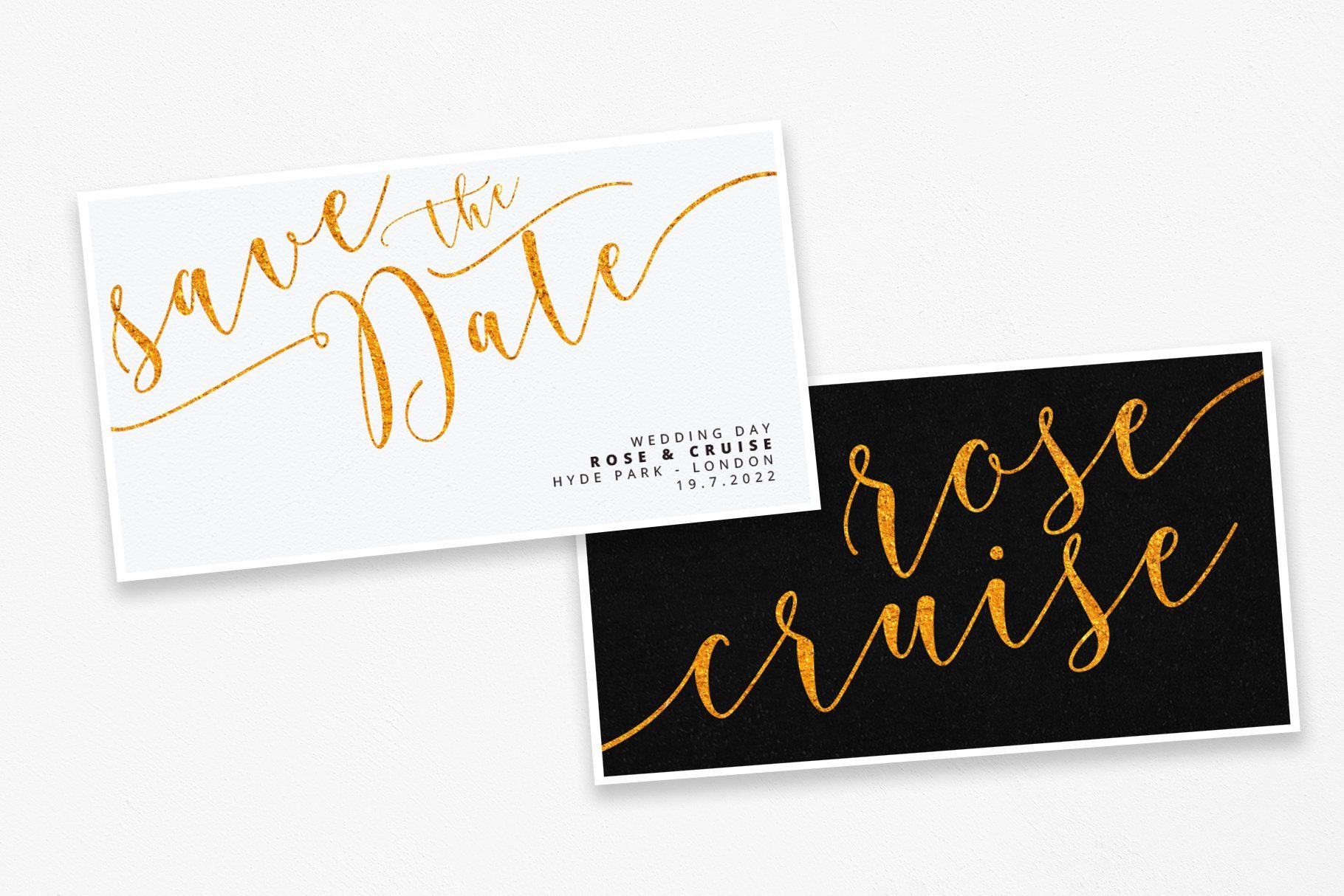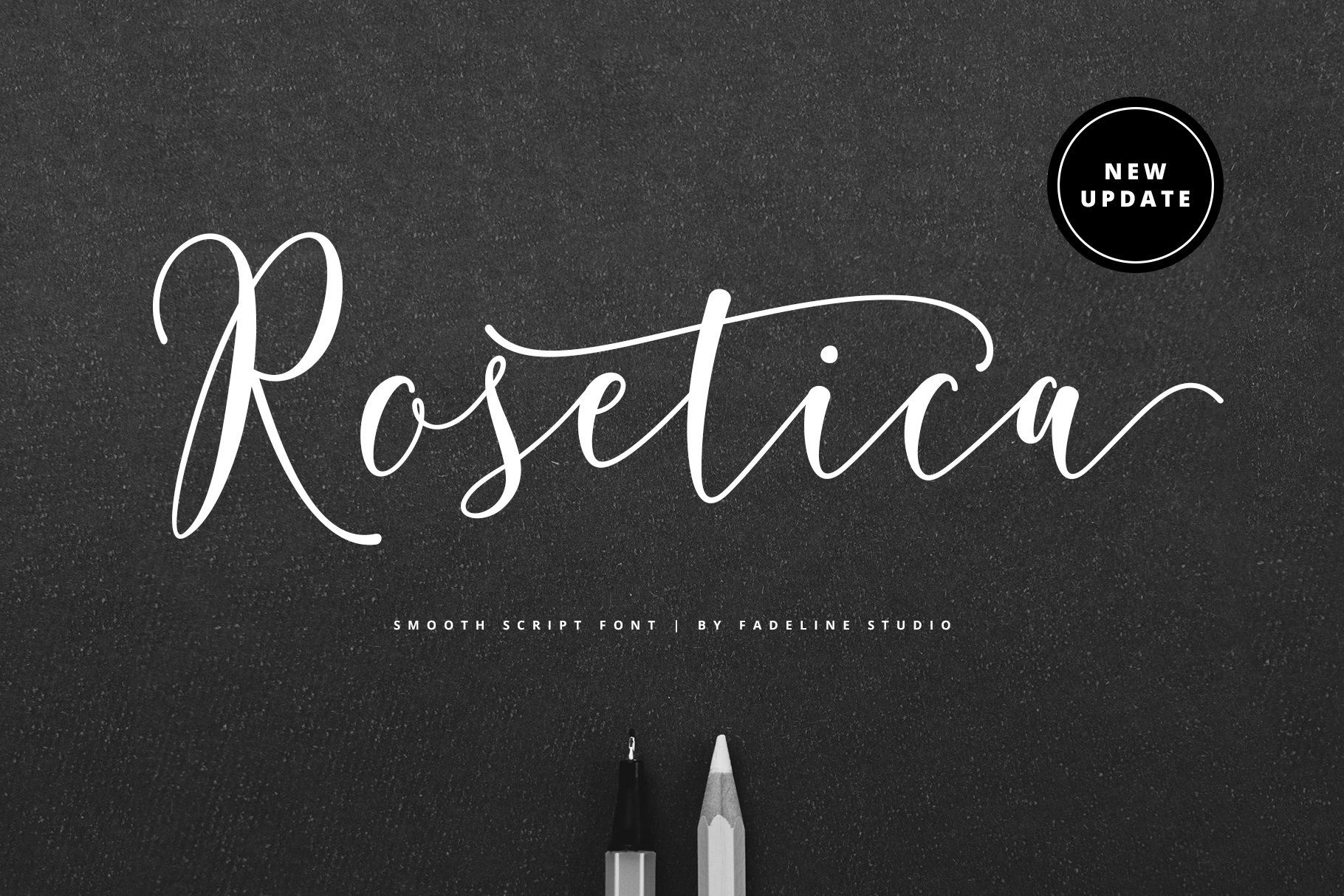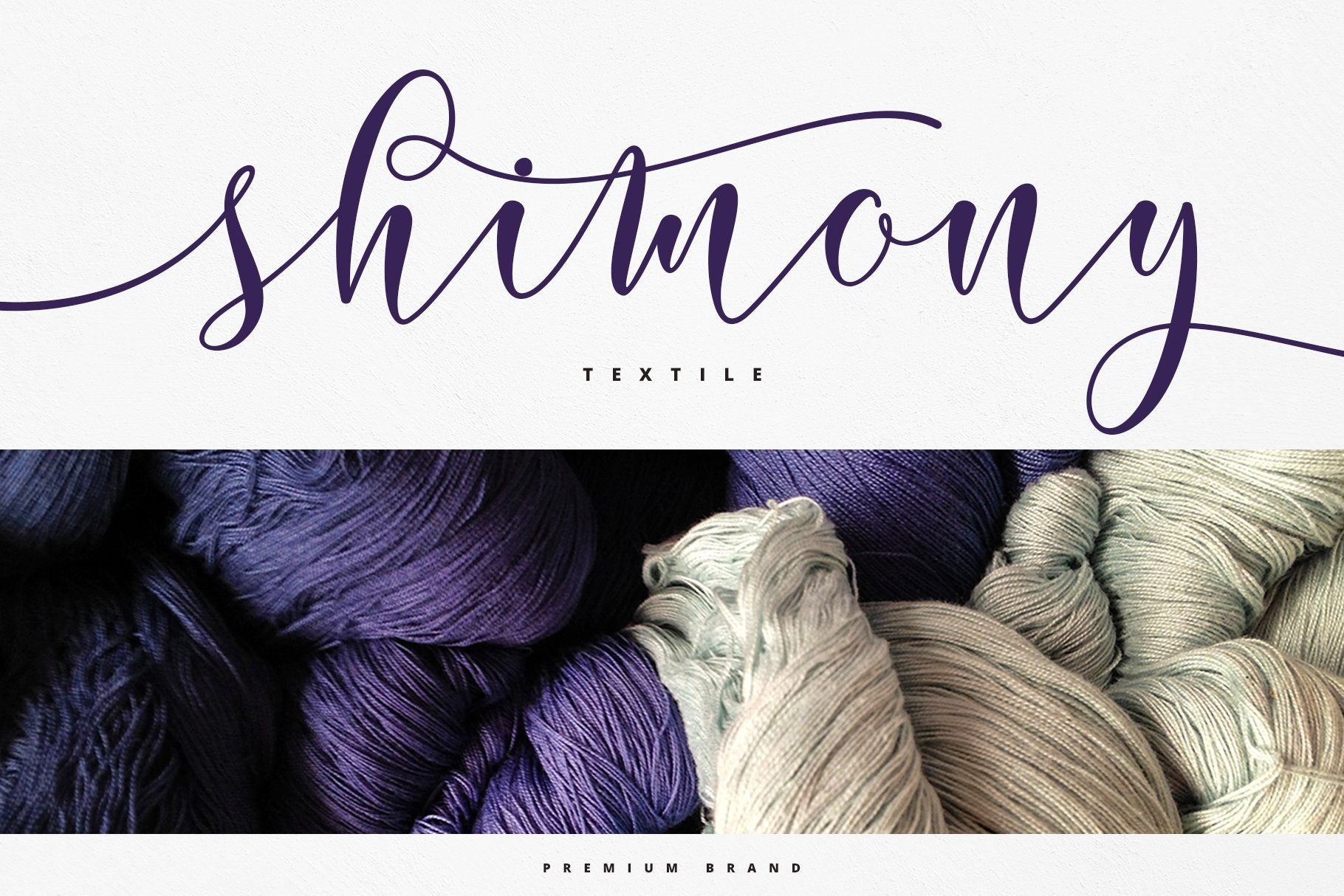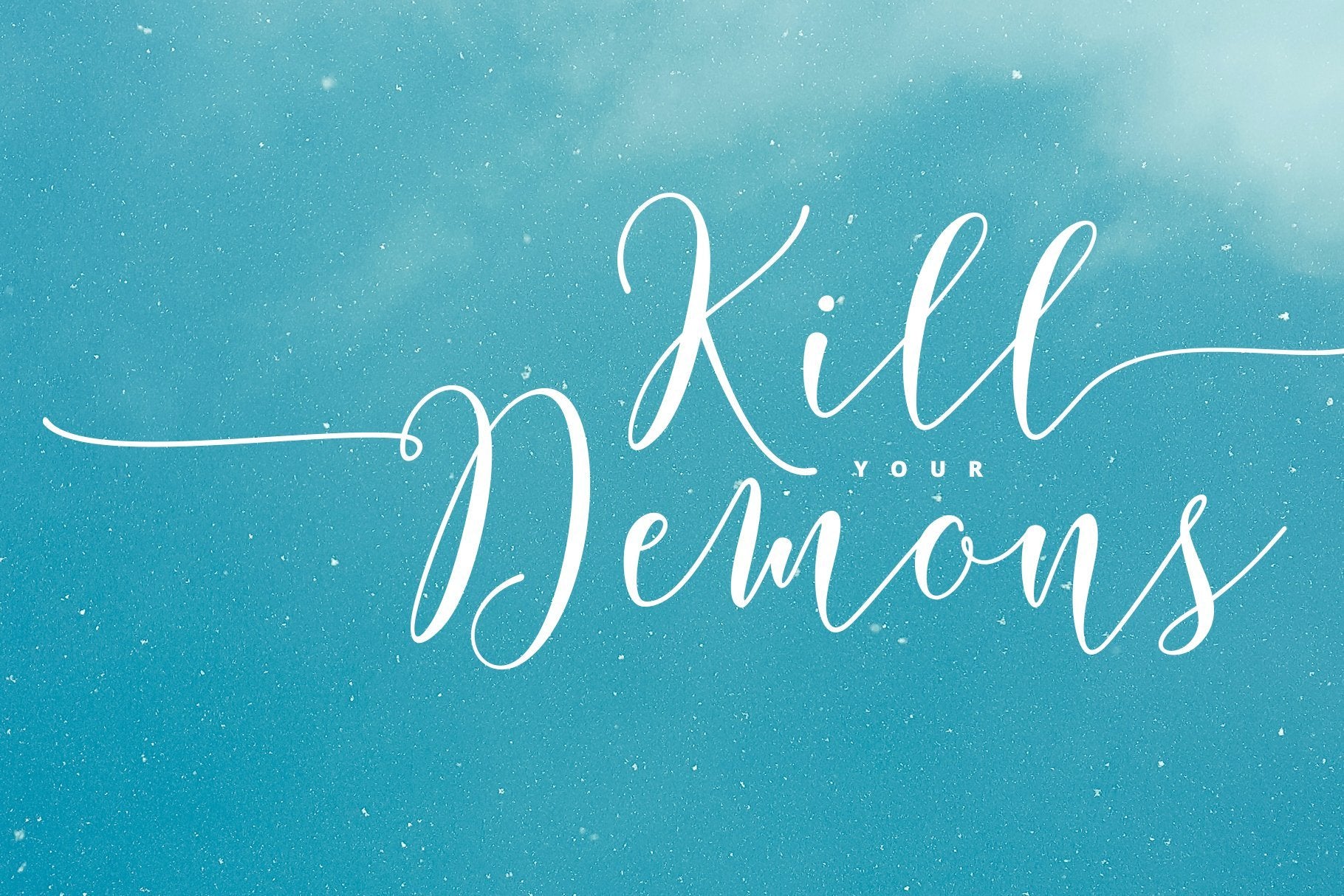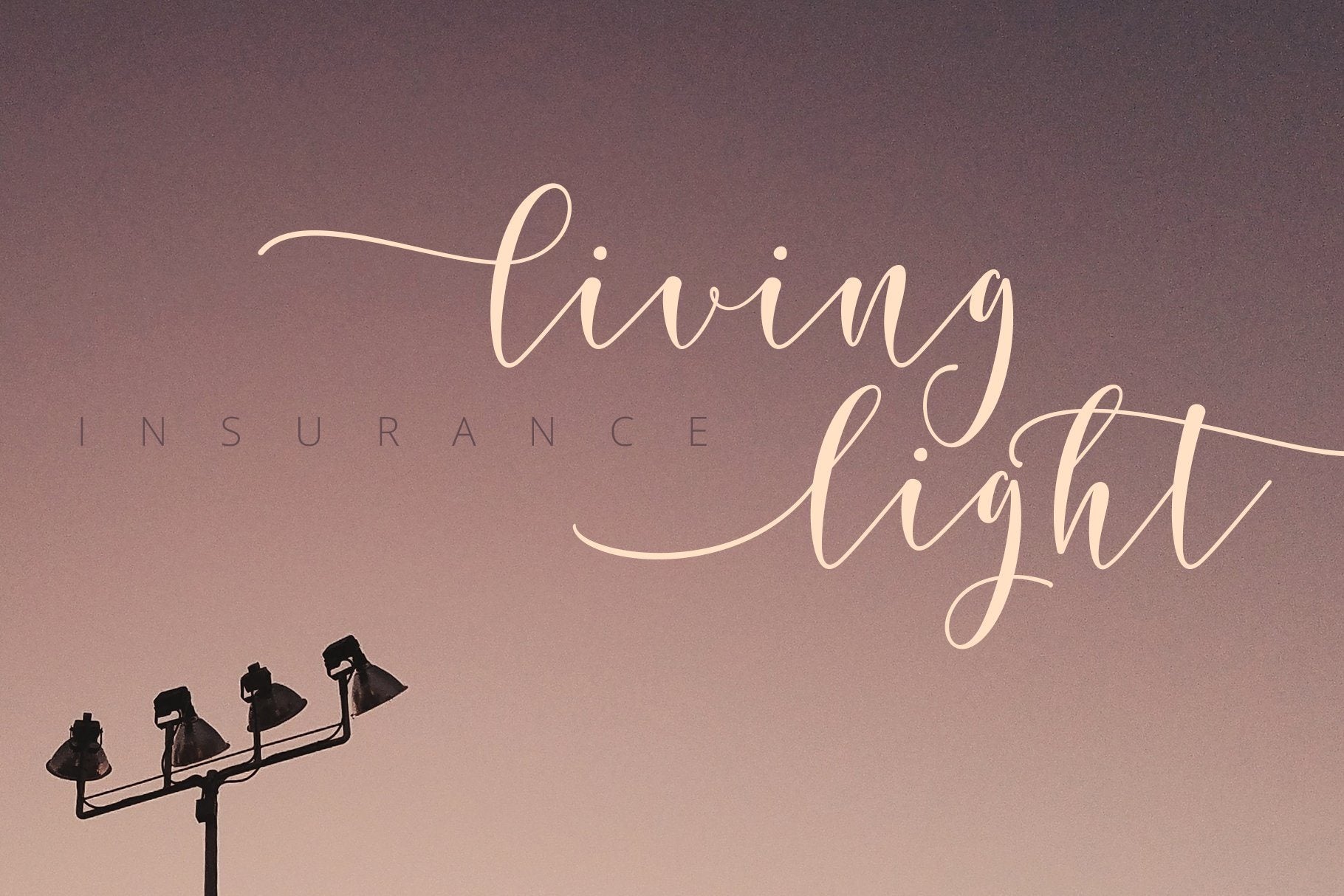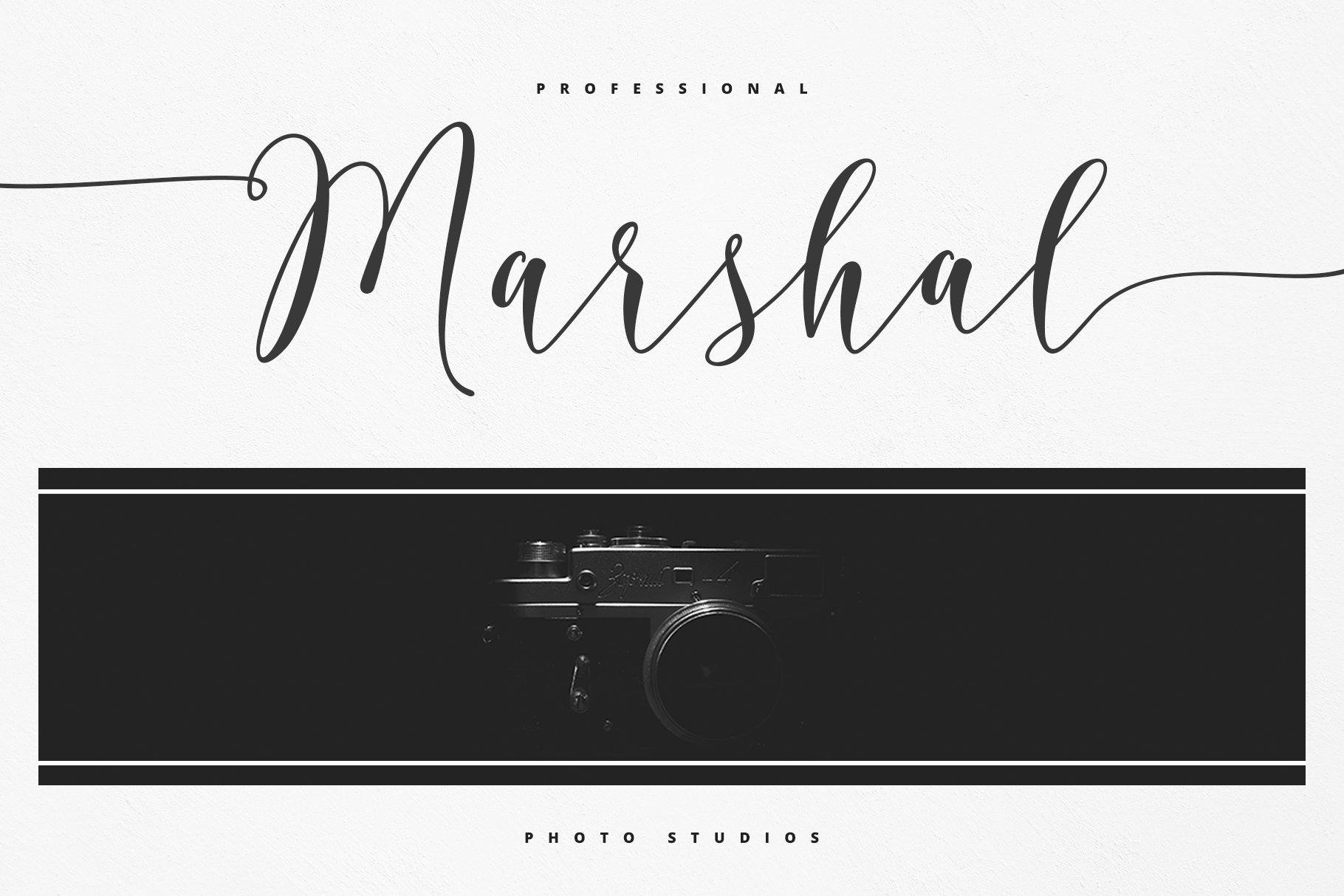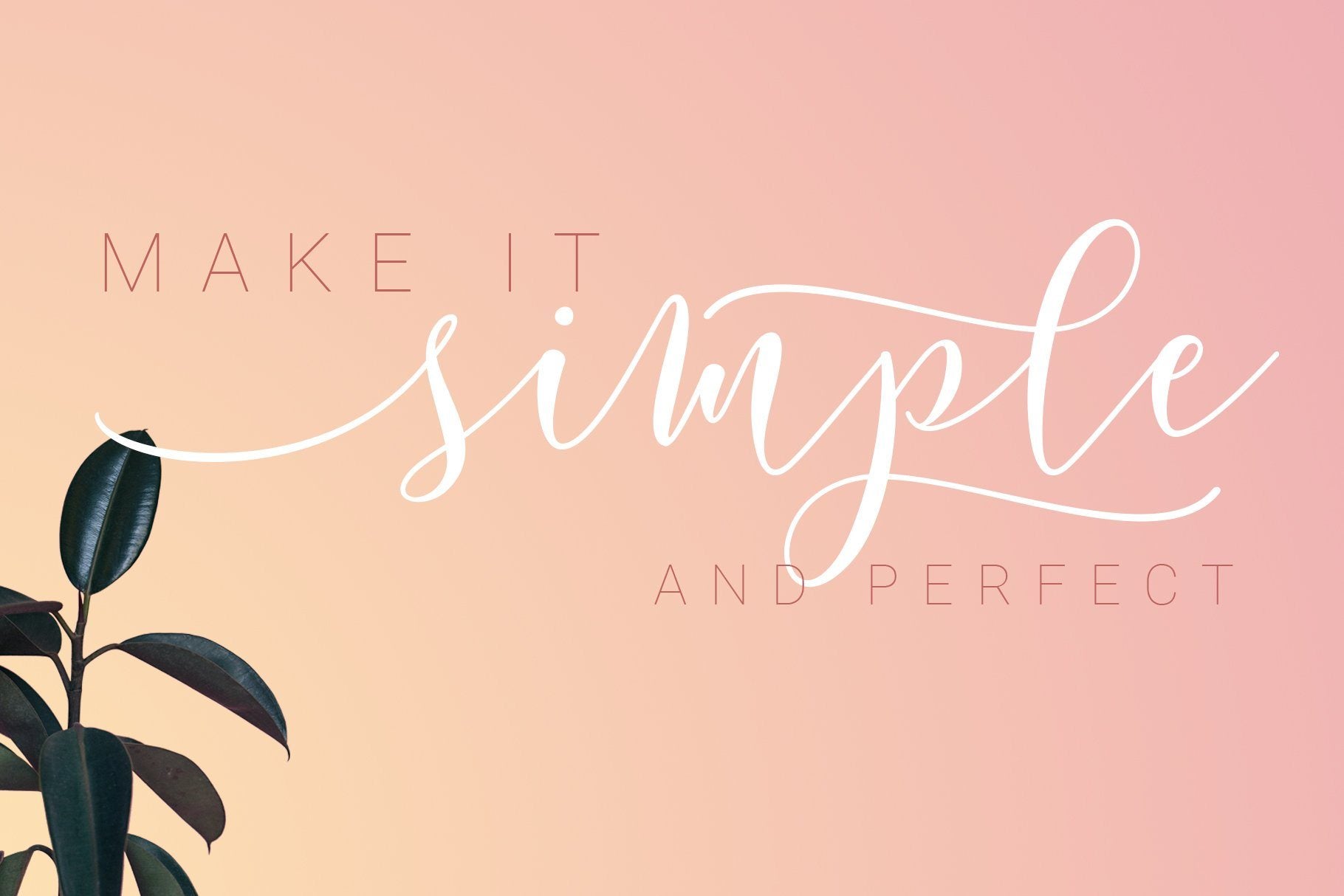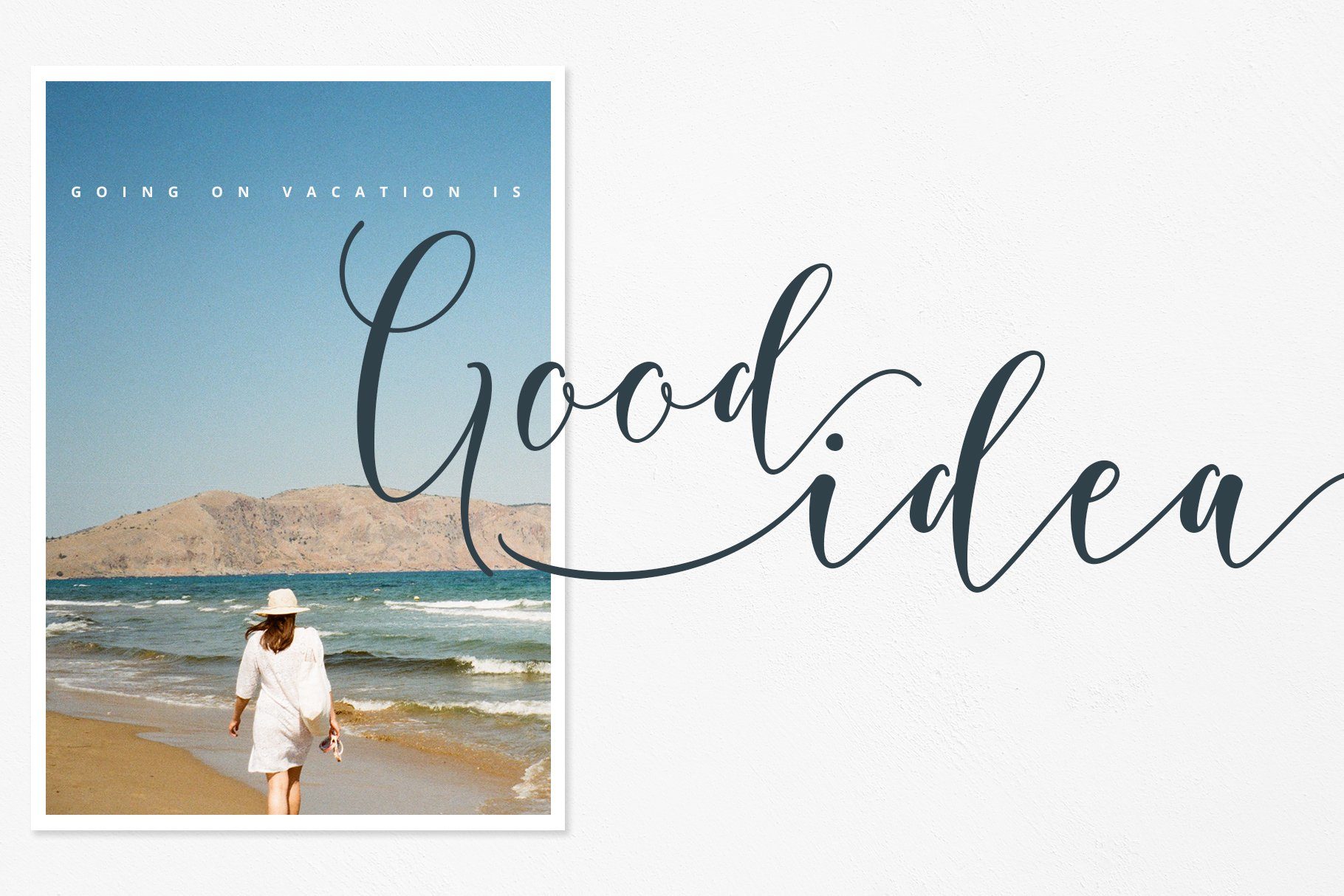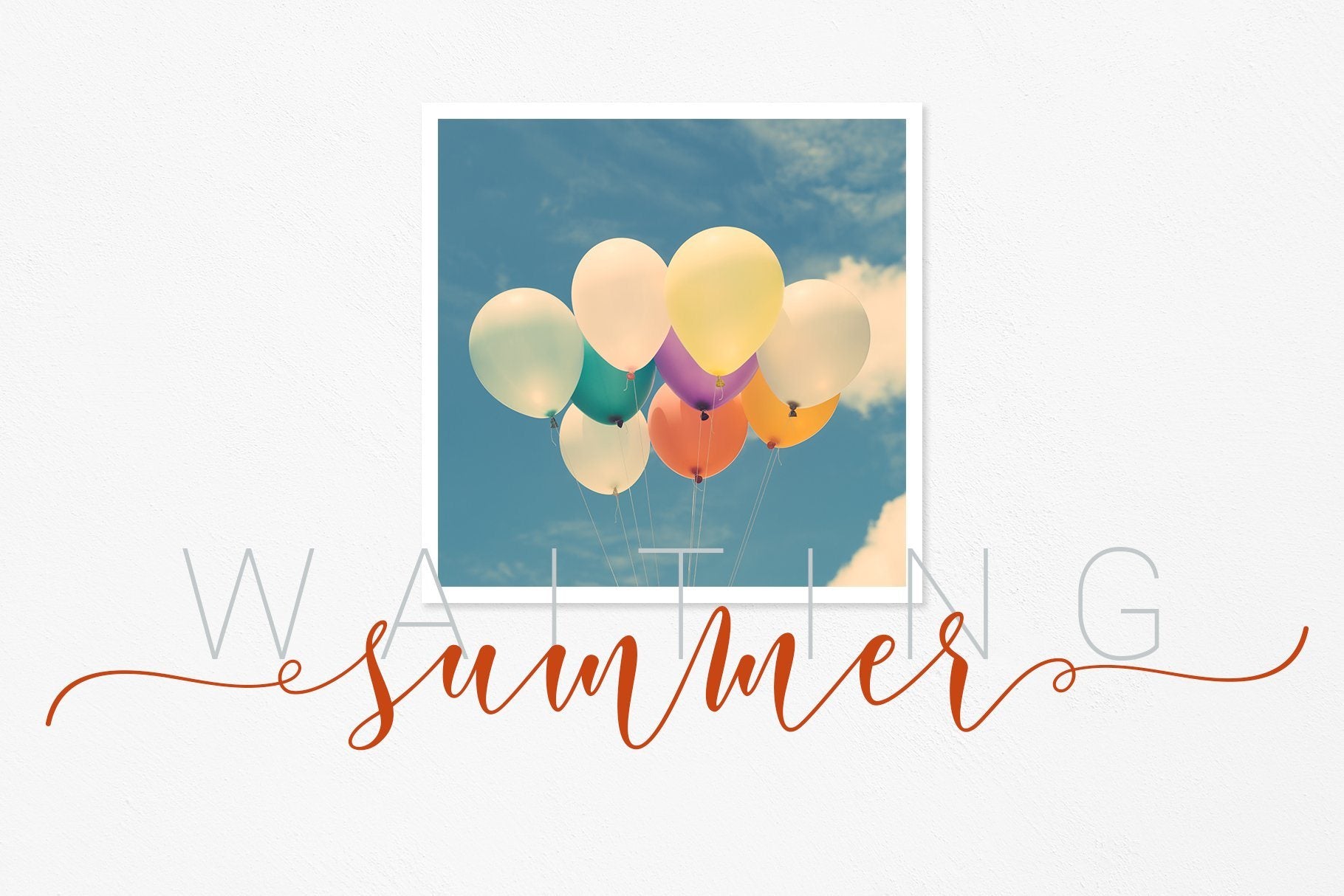
Rosetica Smooth Script
About Rosetica Smooth Script
Rosetica Smooth Script Hi Designer, Coming again to complete your script font collection..! This time it came with 700 glyphs. This is a smooth script font with handwriting style. This time made soft so it gives the character of handwriting very simple, real and sweet. Rosetica is perfect for logo’s, branding projects, homeware designs, product packaging, mugs, quotes, posters, shopping bags, logo’s, t-shirts, book covers, name card, invitation cards, greeting cards, and all your other lovely projects.